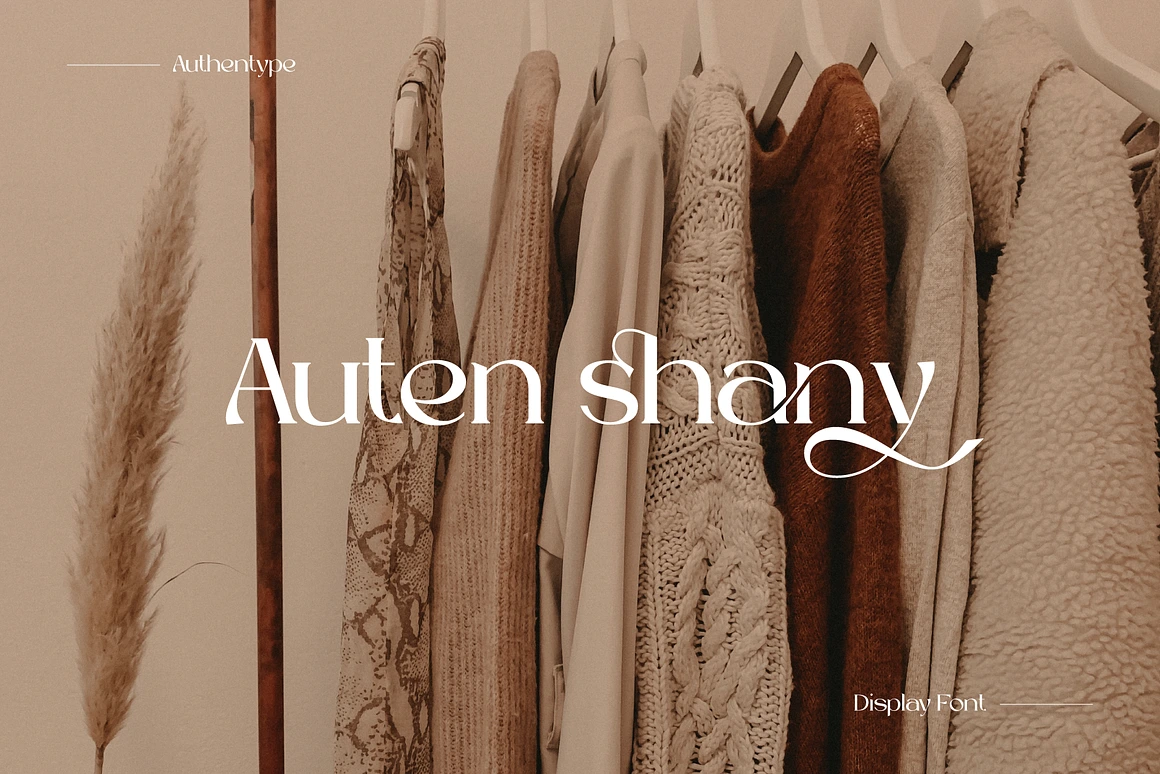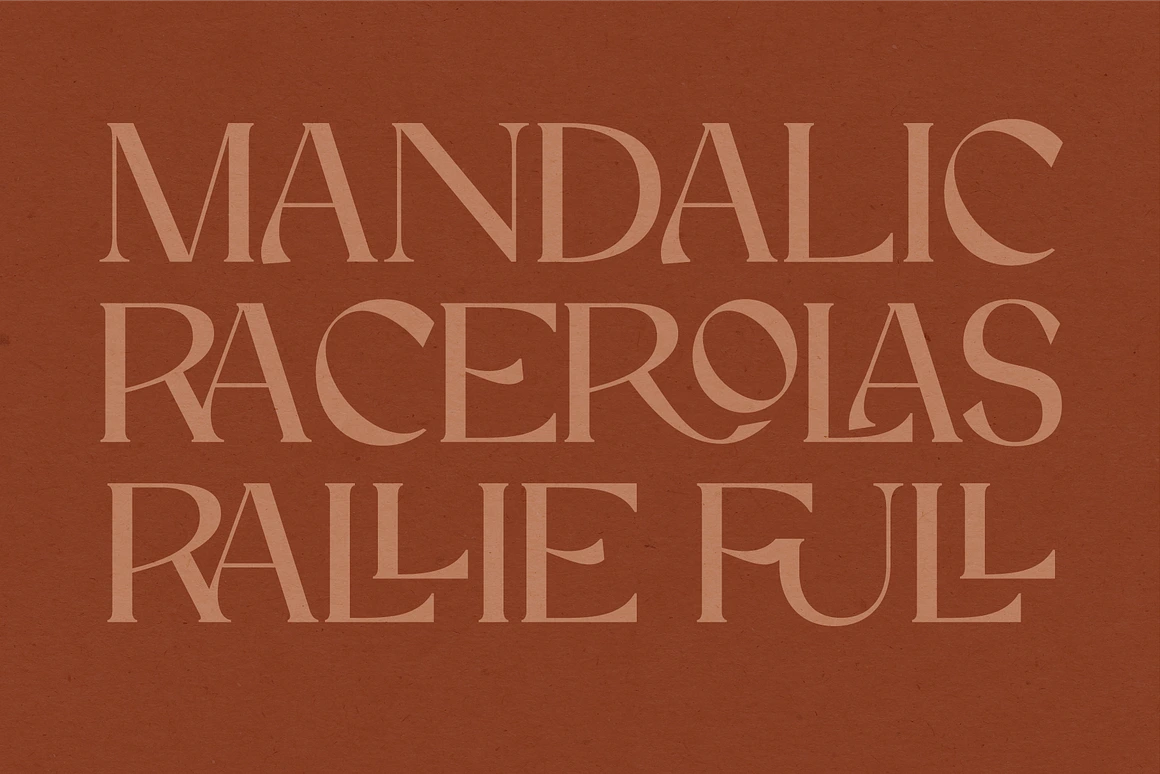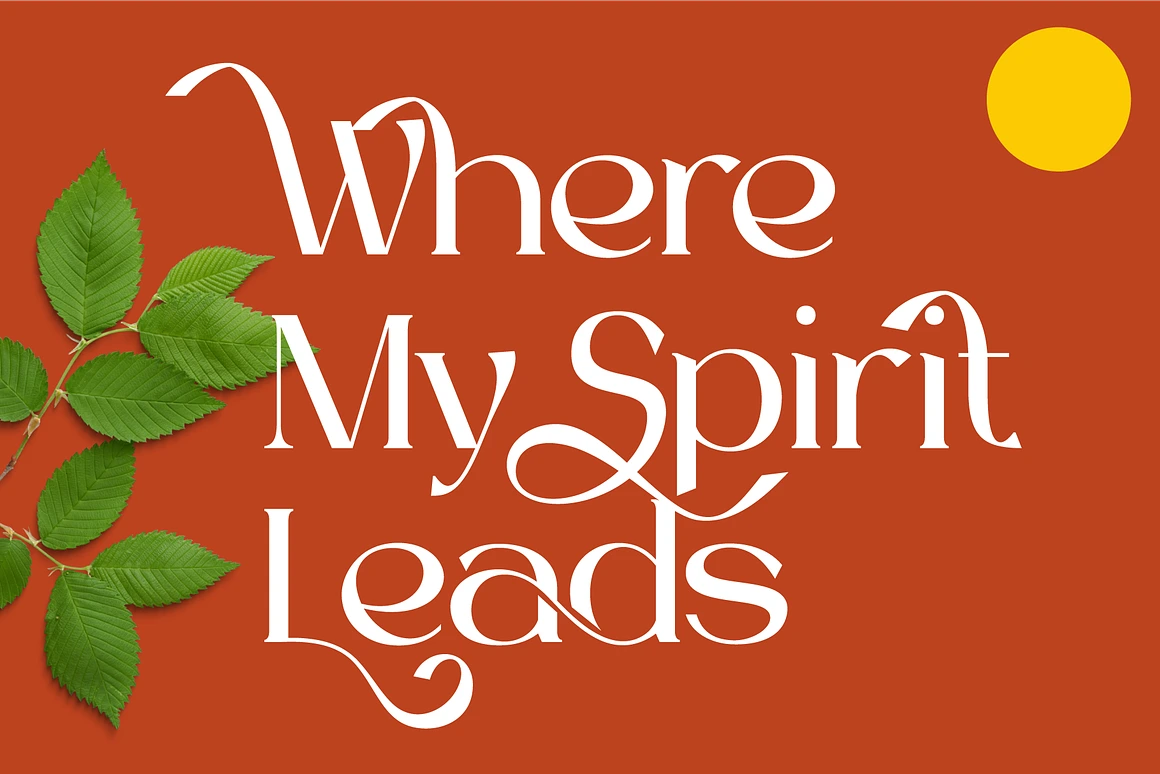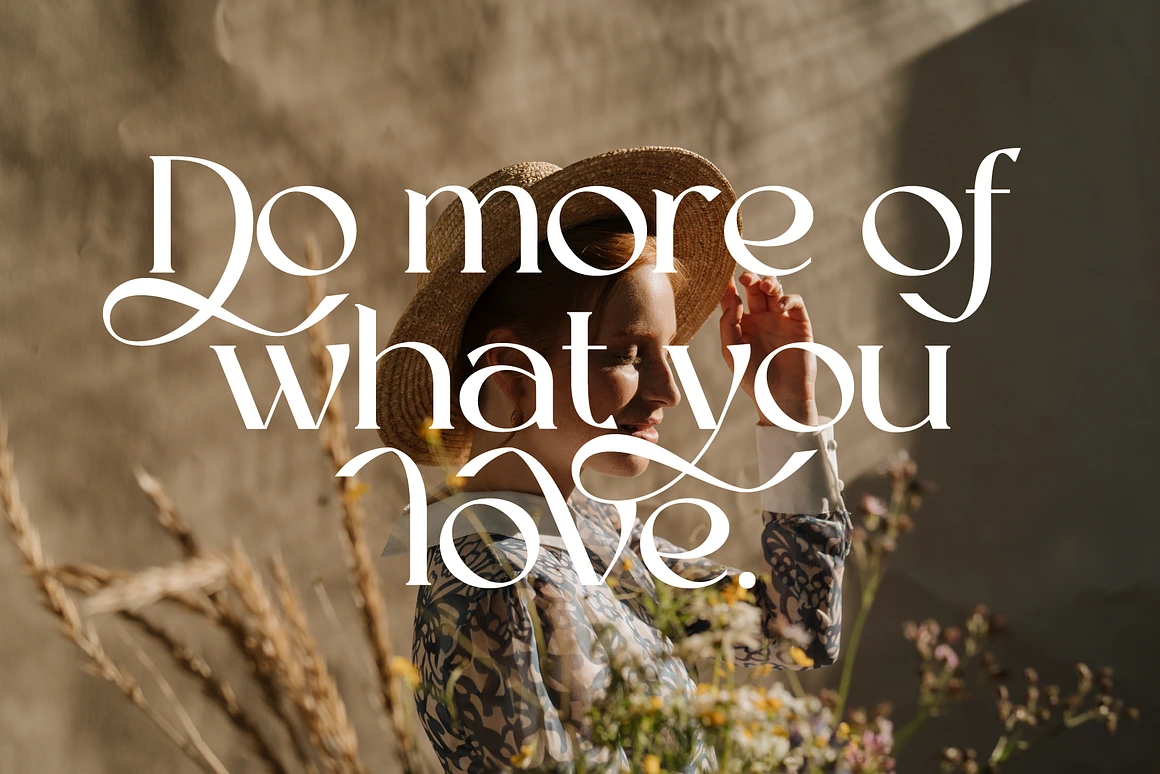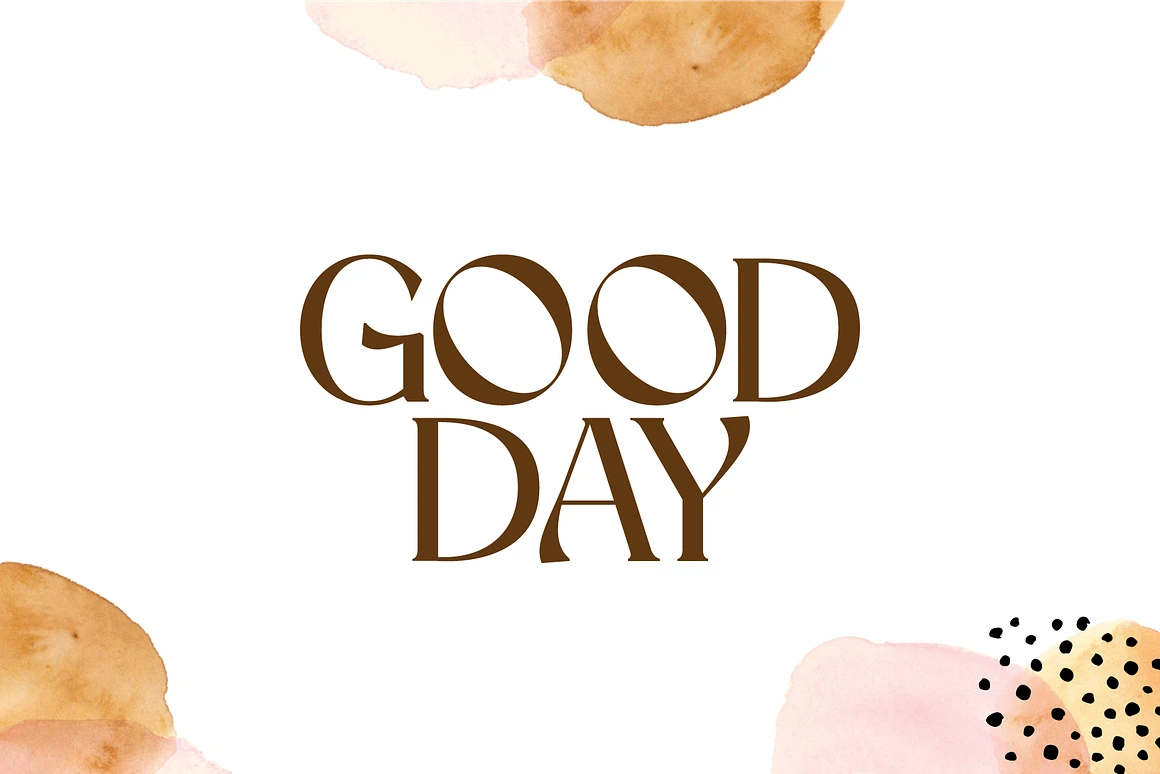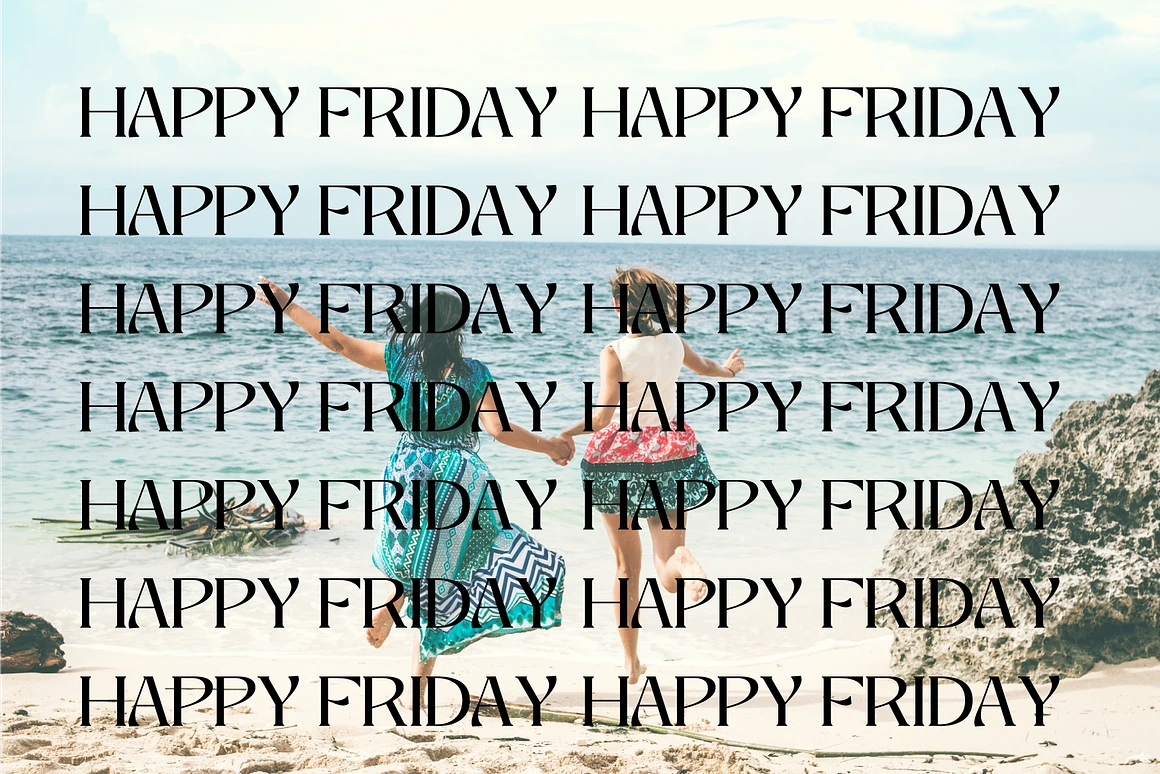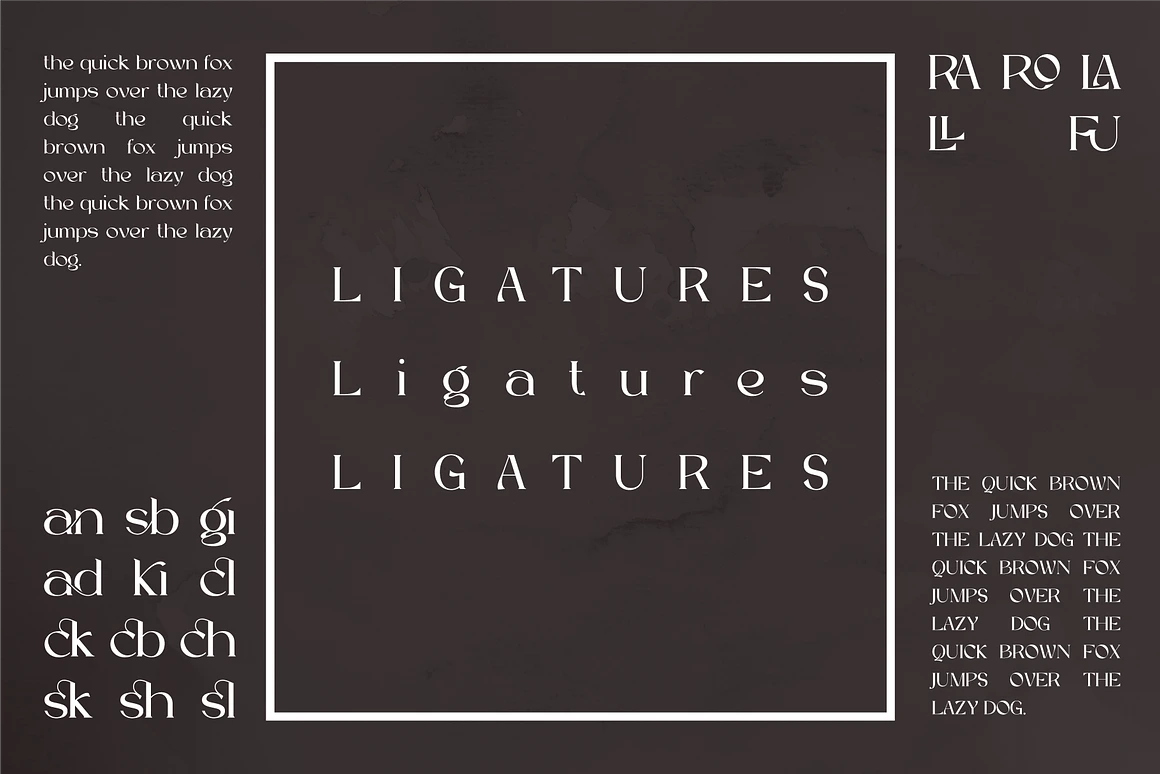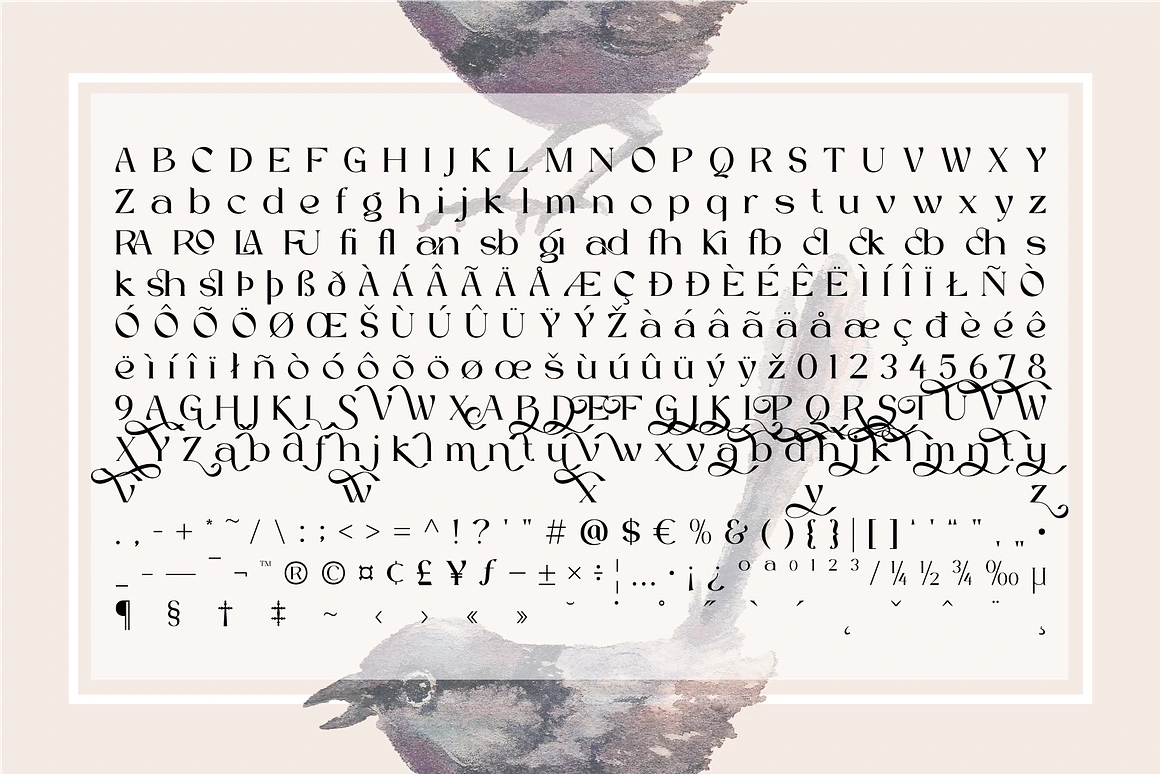
Auten Shany Beauty Serif Font
Auten Shany
Auten shany beauty serif font is a sans serif font with a full set of uppercase and lowercase letters, multilingual symbols, numbers, punctuation, and ligatures. Auten shany beauty serif font style for Poster, Magazine, Beauty brand design with swash glyph suitable for your beautiful elegant design concept.
* Standard glyphs uppercase and lowercase letters
* Numerals, a large range of punctuation and ligatures
* Lowercase letters include ending swashes